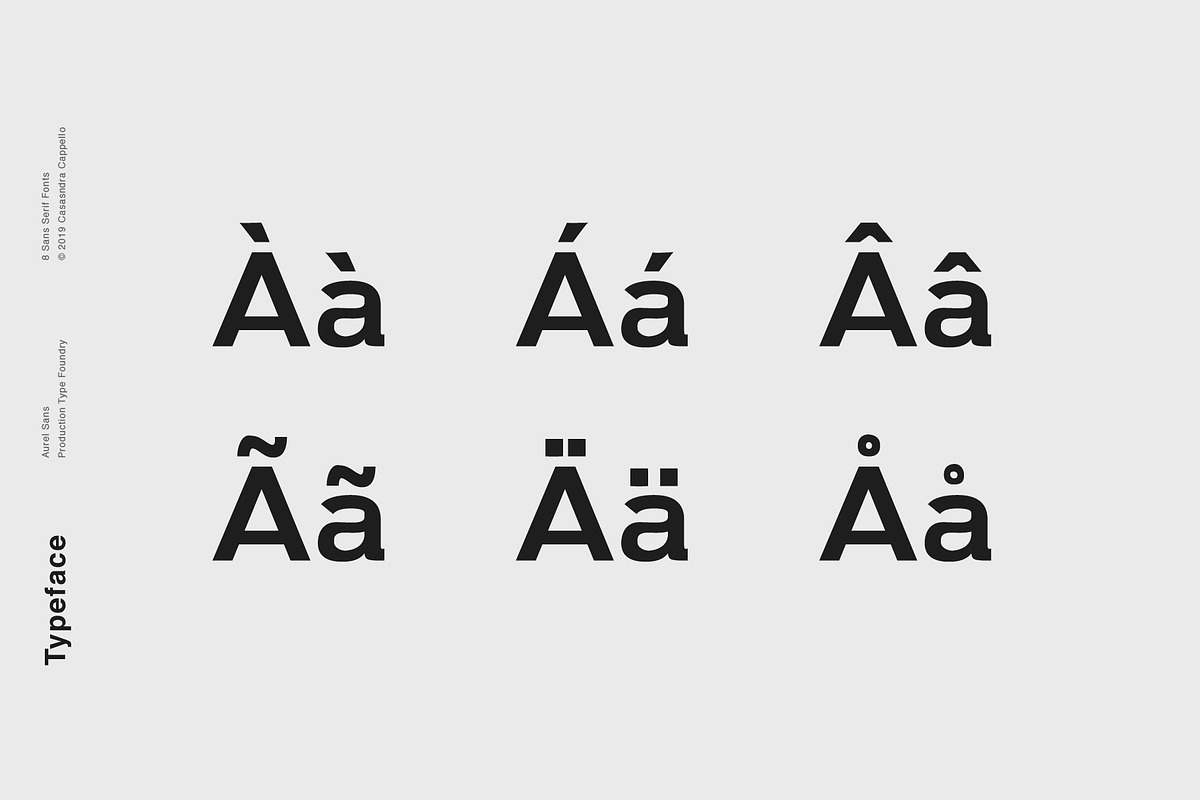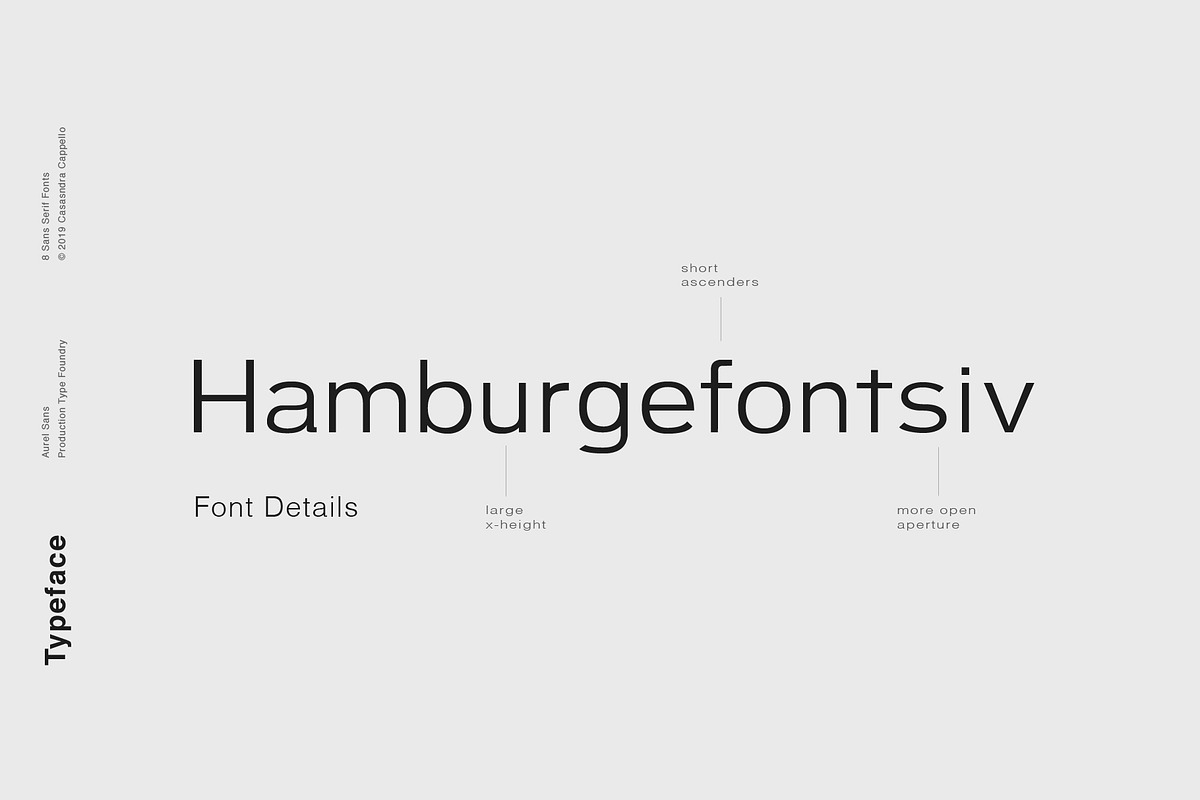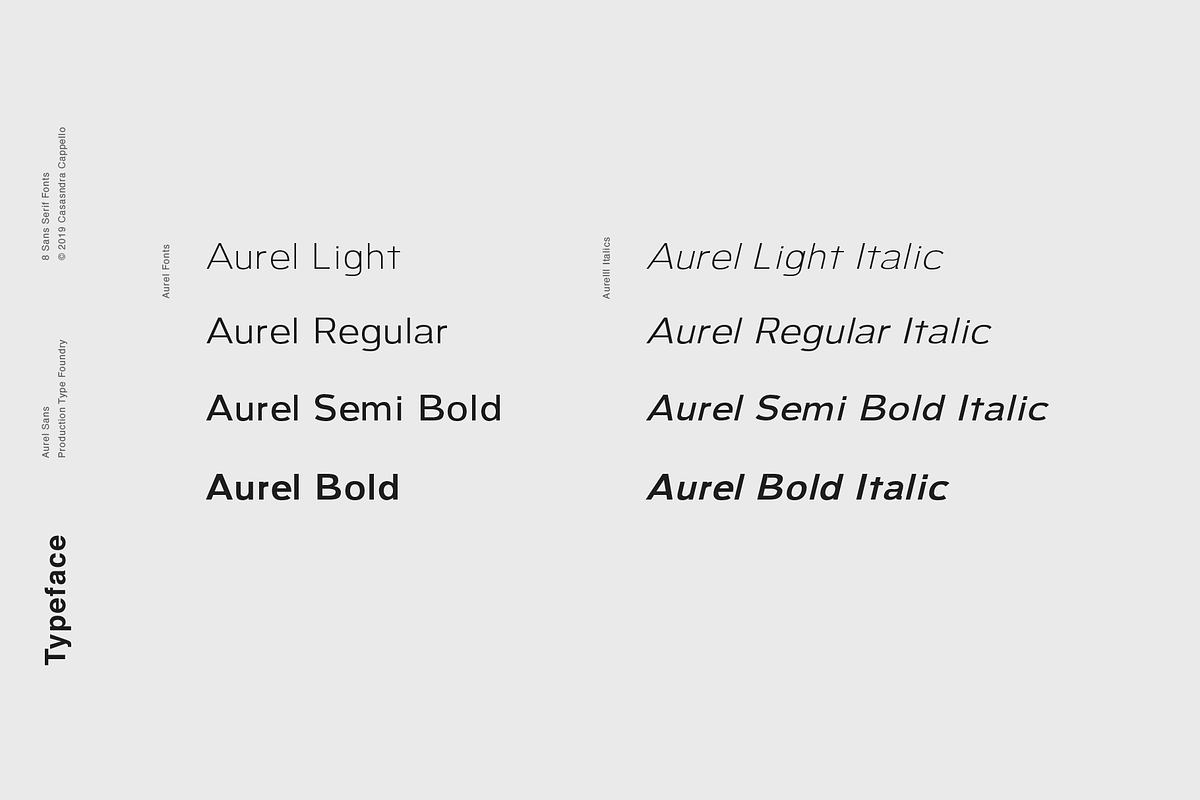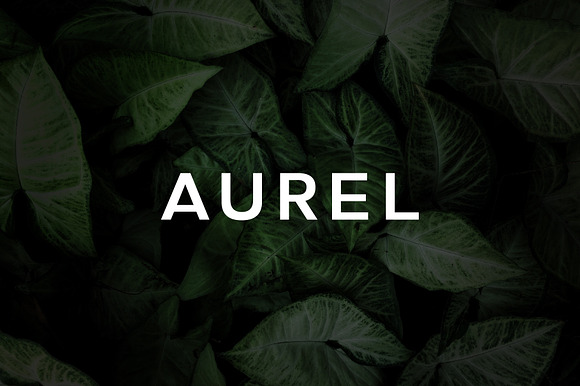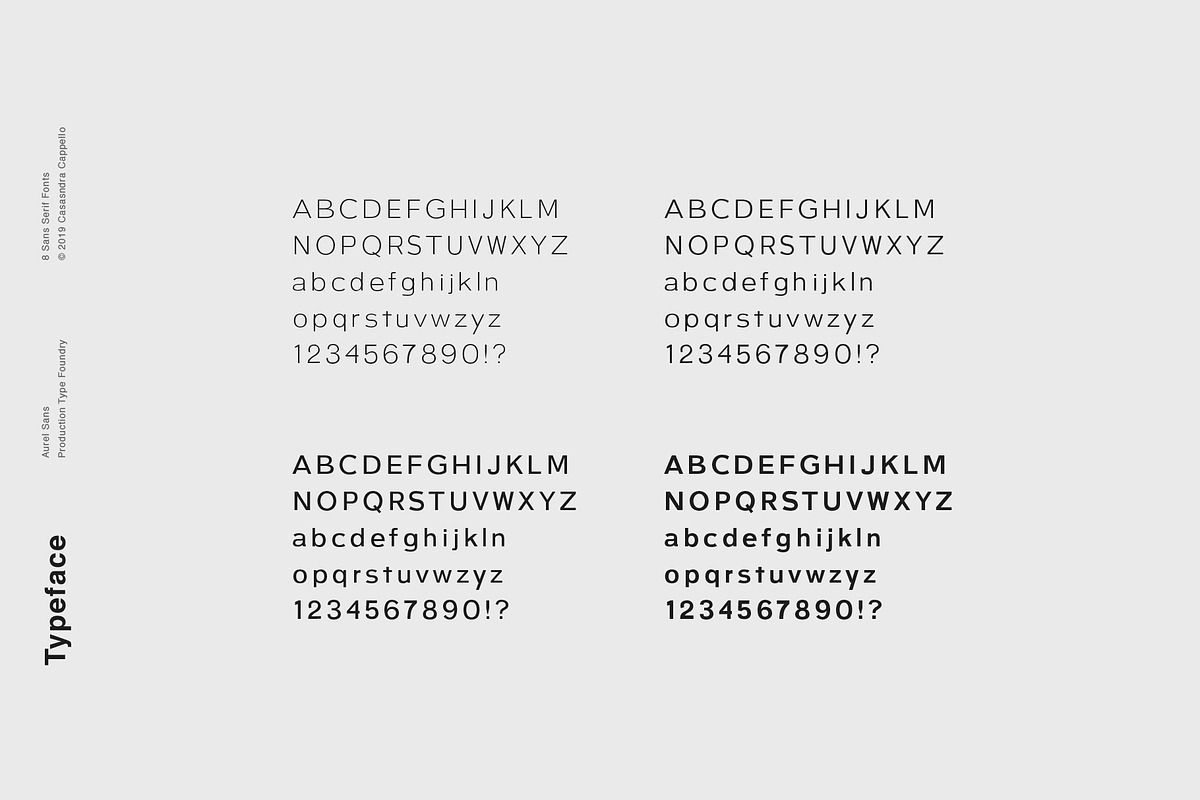
Aurel - An Open Sans Serif Typeface
Aurel is an open, modern, sans serif typeface. It has a little bit of irregularity to add personality and can be used for both headers and body copy. This font family includes all Latin characters (including accents), numbers, special characters, and punctuation.
- This font family includes all Latin characters (including accents), numbers, special characters, and punctuation.
- Aurel includes eight fonts in OTF format: four weights and four italics.